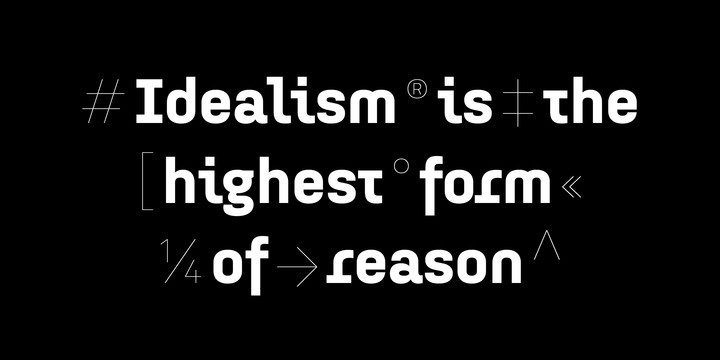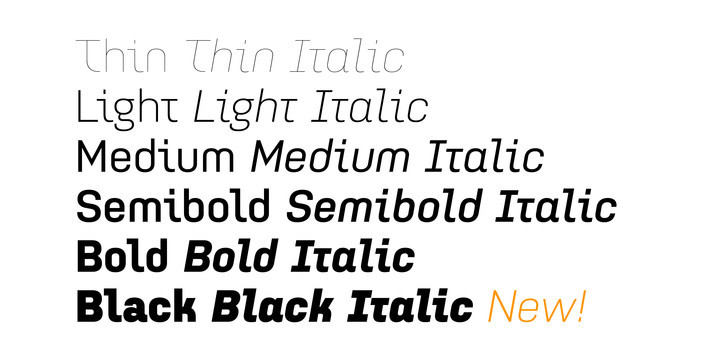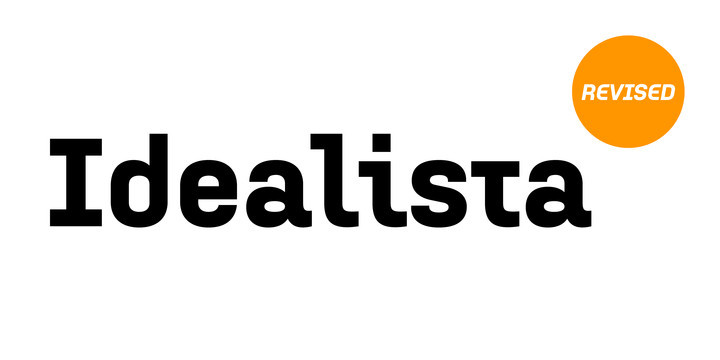
Idealista Font
Idealista directly responds to its other members, Nudista and Kulturista. It shares the same proportions and the same set of weights, yet it enriches the expression means of the two typefaces with new themes — the character set is smooth, even round, and it boasts a number of special details and perky moves.
Most of all, Idealista relishes juicy magazine titles, typographic logotypes and propagandist posters. Unlike cold, technicist typefaces, it has great zest for life, so there’s no wonder that in each of the letters, intuition wins over intellect. Owing to this, the text set in Idealista has a special voluptuous quality and unmistakable temperament — in a single typeface Idealista combines the best of sans-serif, slab-serif, as well as geometric and calligraphic construction principles, coming down to one impressive, expressive cocktail. Some letters have serifs, some do not, some are sharp, some are smooth, and all this results in the nice hip-hop beat of the line of text.